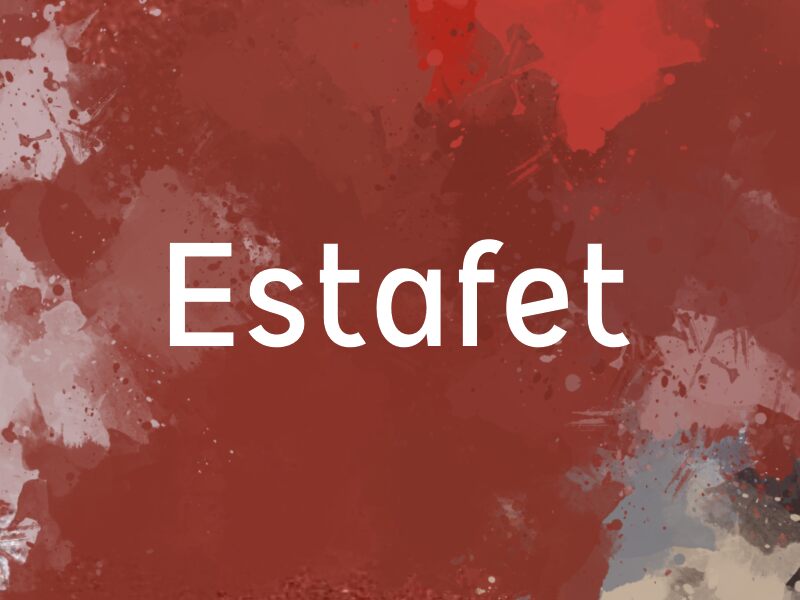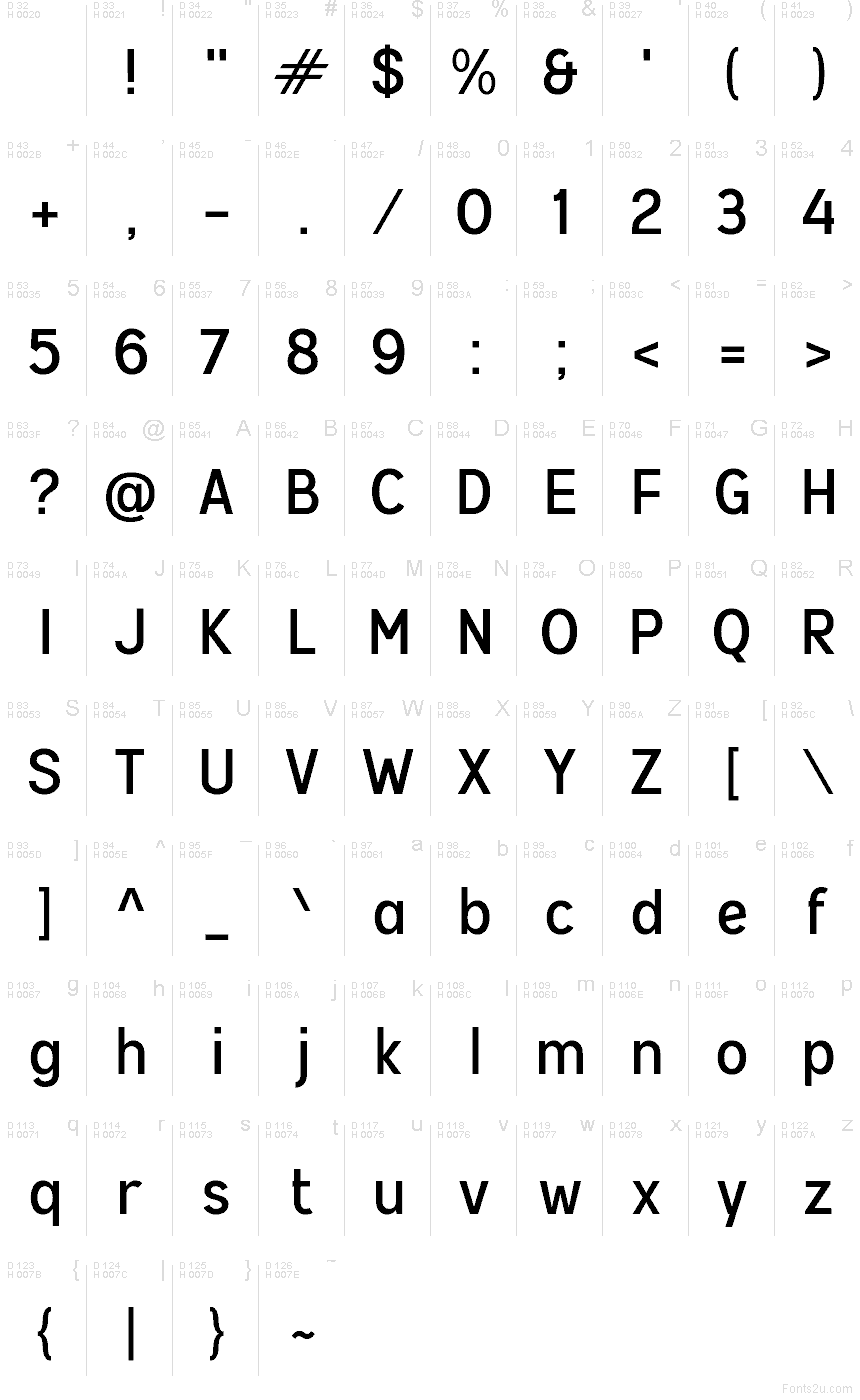
Estafet
Estafet font by wepfont.com is a free sans serif typeface that takes the stress out of choosing something clear yet friendly. Its open counters, sturdy letterforms, and smooth, rounded joints give copy a calm, readable flow that still feels warm and approachable. The spacing is generous without wasting space, so paragraphs stay airy on screen and in print, even at smaller sizes.
Using Estafet, you can trust long-form text, UI labels, product packaging, and educational materials to stay legible and approachable. This free font also works beautifully for posters, signage, and clean branding systems that need a straightforward, human tone. Try pairing Estafet for body text with a slightly heavier weight of itself for headings to keep your typography consistent and effortless.